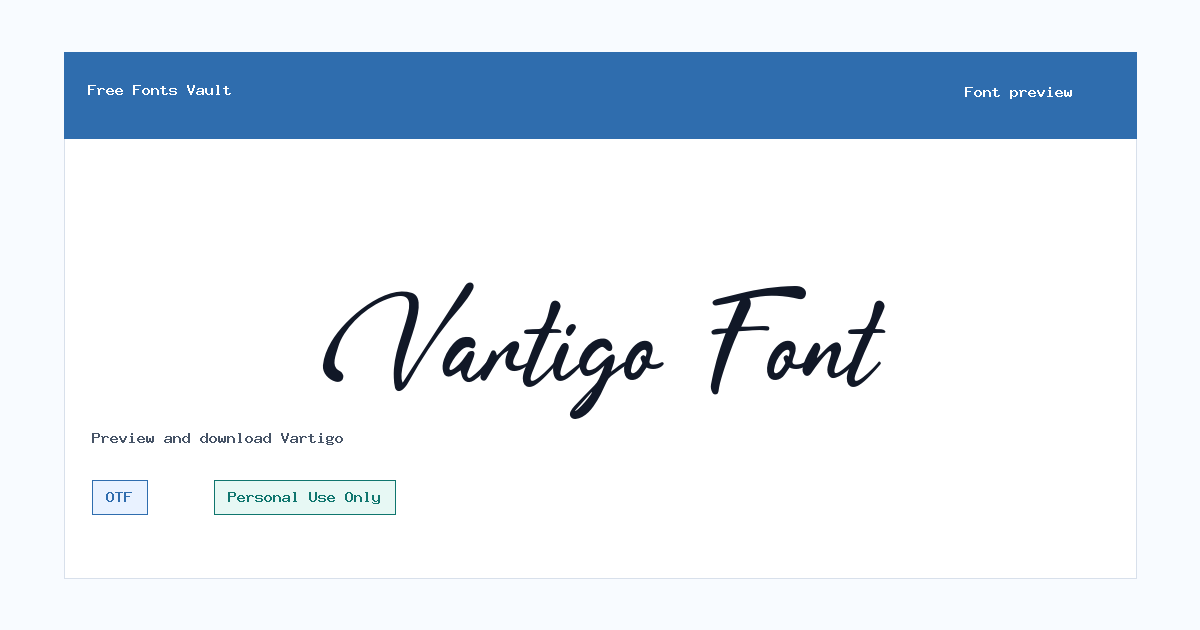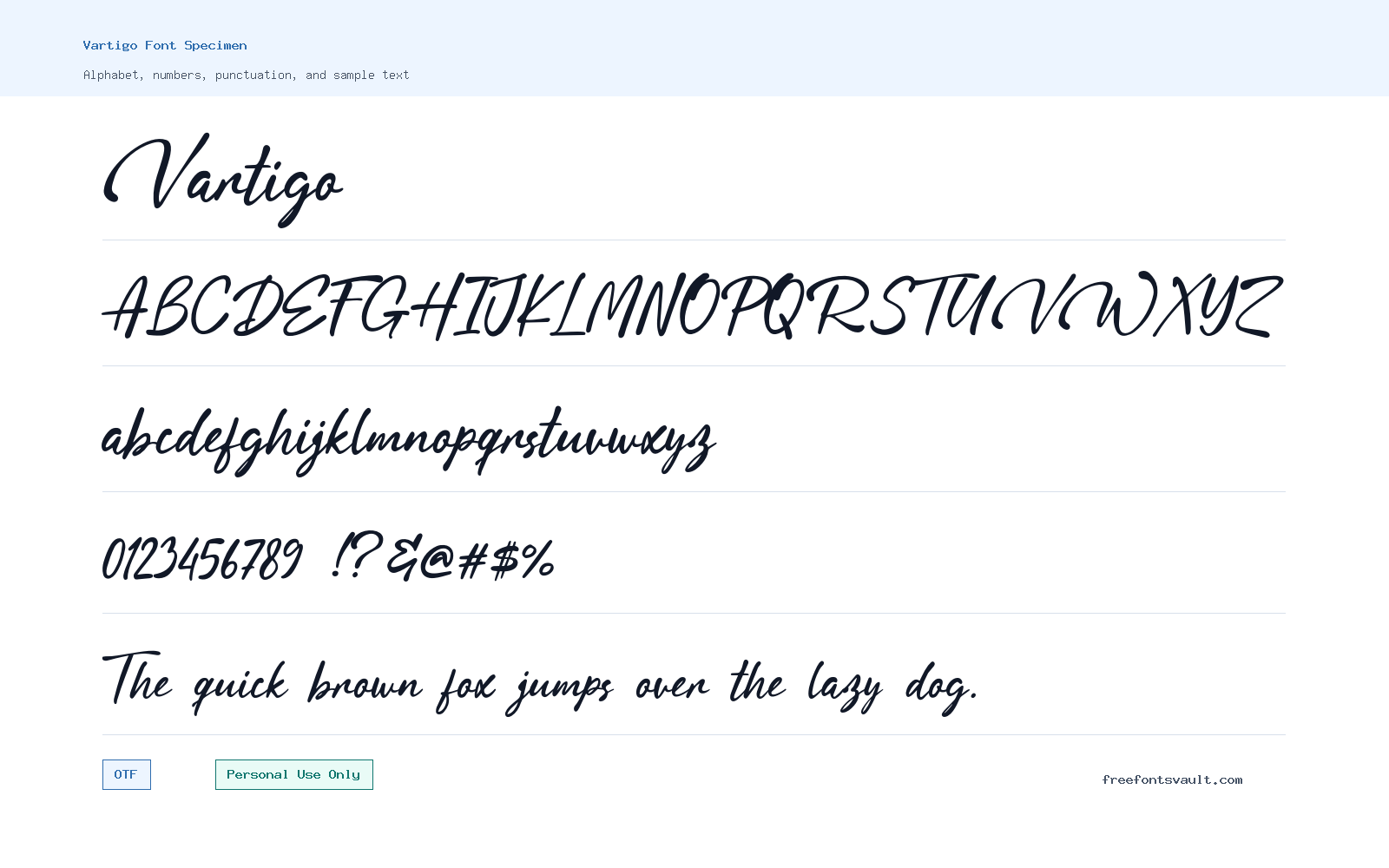
Vartigo
Vartigo font.
Vartigo is a handwritten script font with a casual, connected look that works best when you want lettering to feel personal rather than formal. It is suitable for testing in display layouts such as logos, posters, titles, invitations, and social graphics, with an important license limit: the listed license is Personal Use Only.
About Vartigo Font
Vartigo has the feel of loose hand lettering, with flowing strokes and a script rhythm that suits short words, names, headings, and decorative phrases. Because the font is provided as a regular OTF style, it is easy to test in common design software and in font preview tools. Its handwritten style can bring warmth to a layout, especially when used for a headline, a signature-style mark, or a short piece of branding text in a mockup.
- Handwritten script style with a casual connected feel
- Best suited for short display text, names, titles, and decorative phrases
- Works well as an accent font when paired with a clean sans serif or simple serif
- Logo drafts and personal branding mockups
- Invitations, greeting cards, and quote designs
- Social media images and web hero mockups
- Packaging concepts and label-style layouts for non-commercial testing
- Signature-style headings or decorative wordmarks
Use Vartigo where its handwritten style can be seen clearly. Try it in larger sizes first, then check spacing between letters, especially in names, all-lowercase words, and words with repeated curves. For web mockups, use it sparingly in hero headings, buttons, or graphic text rather than body copy. Pair it with a neutral sans serif for menus, captions, and paragraphs so the script remains the visual highlight. If a word becomes hard to read, increase the size, add letter spacing only carefully, or choose a simpler companion font for supporting text.
What kind of projects is Vartigo good for?
It is best for short display uses such as titles, logo concepts, invitations, posters, quote graphics, and social media designs. It is not ideal for long paragraphs.